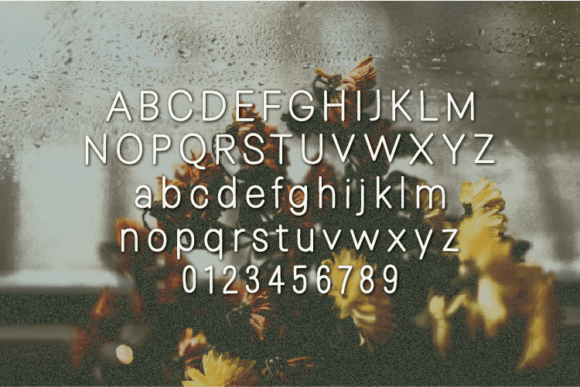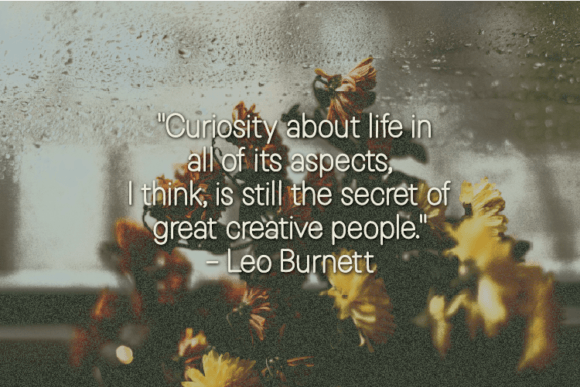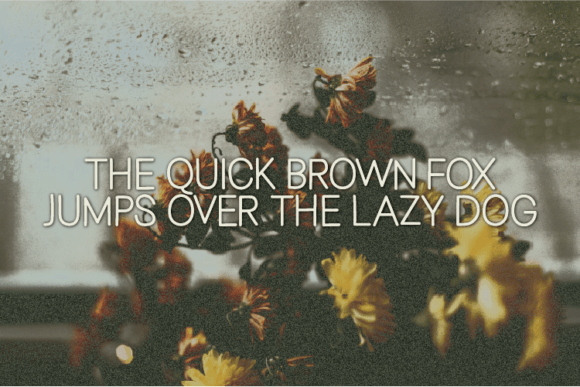
Heartbeat Font: Elevate Your Craft with a Touch of Elegance
Are you a designer or crafter looking for a font that can add a touch of sophistication and elegance to your work? Look no further than the Heartbeat Font. This casual and neat sans serif font is designed to impress with its natural and elegant style, making it the perfect choice for anyone looking to enhance their craft and make their product stand out from the competition.
The Characteristics of Heartbeat Font
The Heartbeat Font is a sans serif font, which means it doesn’t have the small lines or flourishes at the ends of the letters. This gives it a clean and modern look that’s perfect for a wide range of applications. The font is also highly legible, making it easy to read and understand, even at small sizes.
One of the standout features of the Heartbeat Font is its natural and elegant style. The font has a warm and inviting feel that’s reminiscent of handwritten scripts, but with the cleanliness and simplicity of a sans serif font. This makes it perfect for use in a wide range of contexts, from branding and advertising to packaging and signage.
The Benefits of Using Heartbeat Font
So why should you choose the Heartbeat Font for your next project? Here are just a few of the benefits of using this versatile and elegant font:
- Elegance and sophistication: The Heartbeat Font adds a touch of elegance and sophistication to any project, making it perfect for high-end brands and luxury products.
- Versatility: The font is highly versatile and can be used in a wide range of contexts, from digital media to print materials.
- Legibility: The font is highly legible, making it easy to read and understand, even at small sizes.
- Unique style: The Heartbeat Font has a unique and distinctive style that’s sure to make your project stand out from the competition.
How to Use Heartbeat Font in Your Design
Using the Heartbeat Font in your design is easy. Here are a few tips to get you started:
- Pair it with bold colors: The Heartbeat Font looks great paired with bold, bright colors. Try using it with a bold color scheme to add a pop of personality to your design.
- Use it for headlines: The font is perfect for use in headlines and titles, where its elegant and sophisticated style can really shine.
- Experiment with different sizes: The font is highly legible, even at small sizes, so don’t be afraid to experiment with different sizes and styles to find the one that works best for your project.
Why Designers and Crafters Love Heartbeat Font
Designers and crafters love the Heartbeat Font for a wide range of reasons. Here are just a few:
- Easy to use: The font is easy to use and can be easily integrated into a wide range of design software and applications.
- High-quality design: The font is designed to high standards, with clean lines and a highly legible design.
- Flexibility: The font is highly versatile and can be used in a wide range of contexts, from digital media to print materials.
In conclusion, the Heartbeat Font is a versatile and elegant sans serif font that’s perfect for designers and crafters looking to add a touch of sophistication and elegance to their work. With its natural and elegant style, high legibility, and versatility, this font is sure to make your project stand out from the competition. So why not give it a try and see the difference it can make?